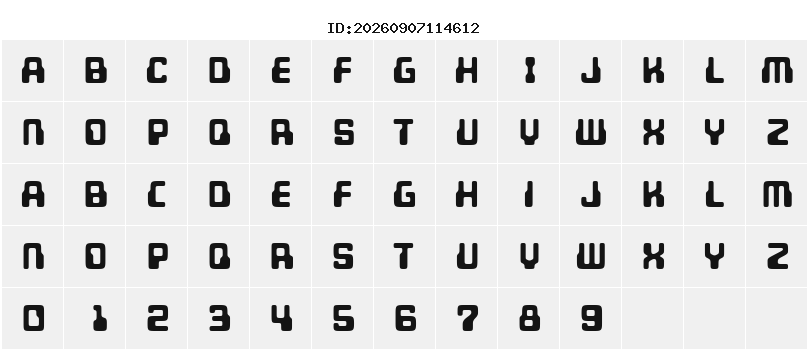
Unicephalon Preview
• Font Name: Unicephalon
• Font Style: Heavy
• Font ID: AndrewYoung: Unicephalon Heavy: 2016
• Full Font Name: Unicephalon Heavy
• Designer: Andrew Young
• Manufacturer: Andrew Young
About Unicephalon.ttf
Unicephalon.ttf is a modern, elegant sans-serif font designed for ultimate readability and visual harmony. Perfect for branding, headlines, web design, and print materials.